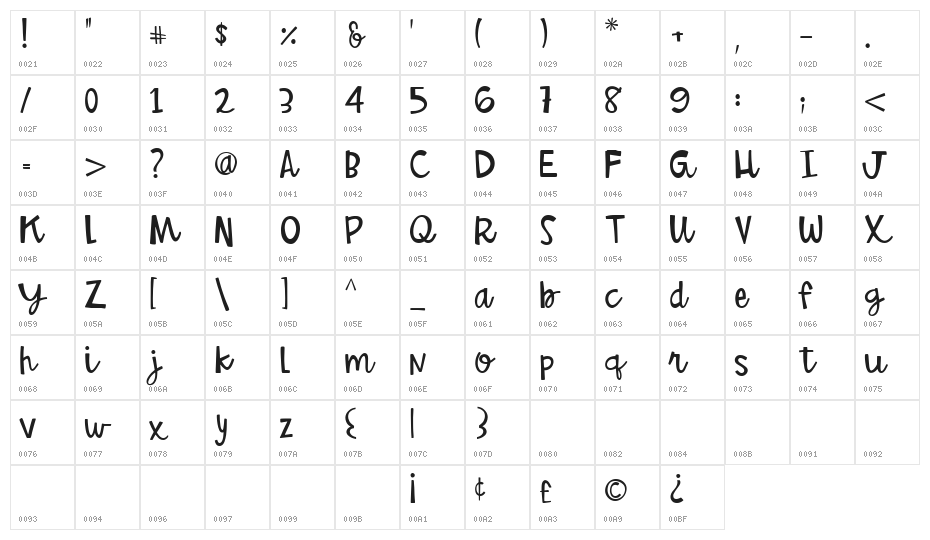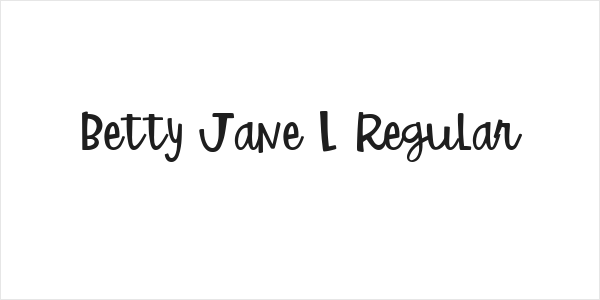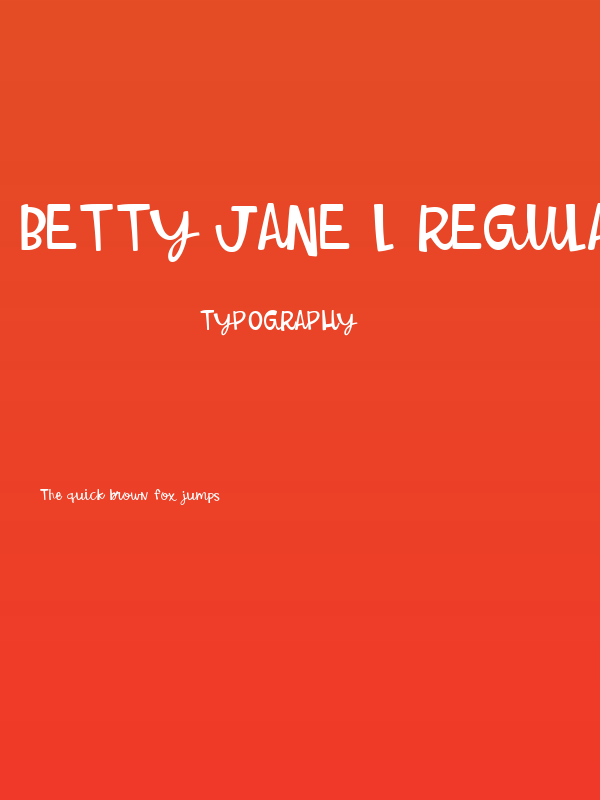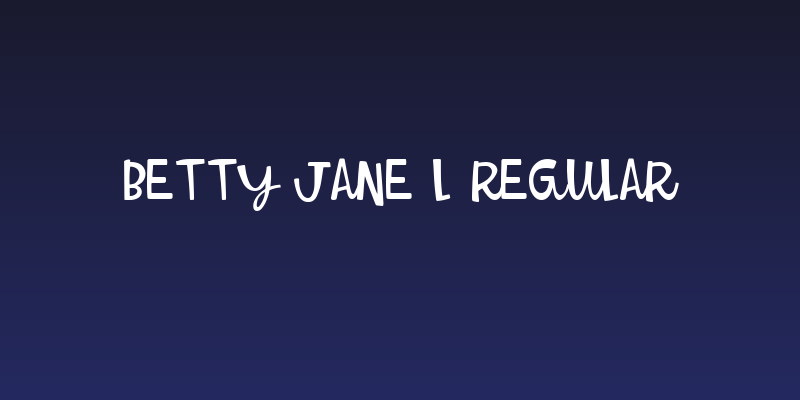
Betty Jane L Regular Font
Betty Jane L Regular Description
This playful and energetic font features a handwritten style with a casual, friendly appearance. The characters are bold and slightly irregular, giving them a lively and dynamic feel. The uppercase letters are tall and slightly narrow, while the lowercase letters maintain a consistent flow with rounded edges and smooth curves. The numerals are bold and easy to read, complementing the overall style. Special characters are included, maintaining the same playful aesthetic. This font is perfect for projects that require a personal touch and a sense of fun.
| Proposed Projects | Ideal for greeting cards, children's books, playful branding, and social media graphics. |